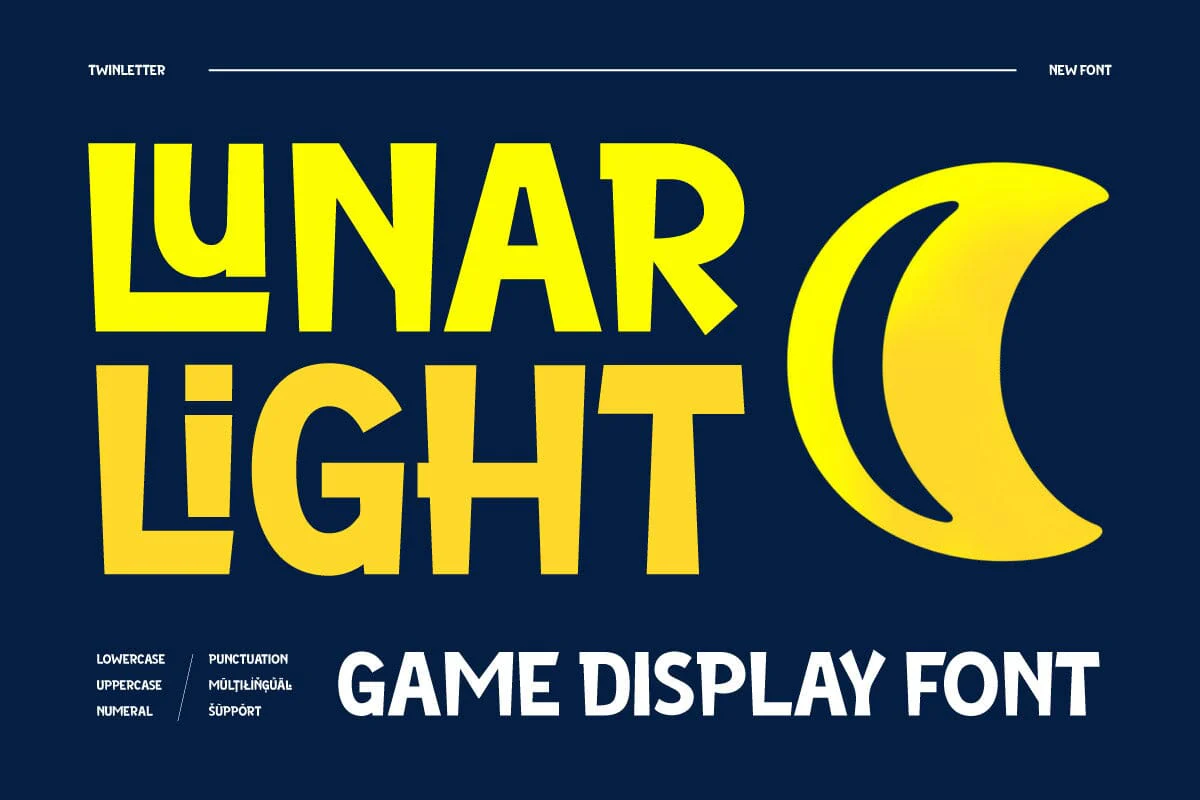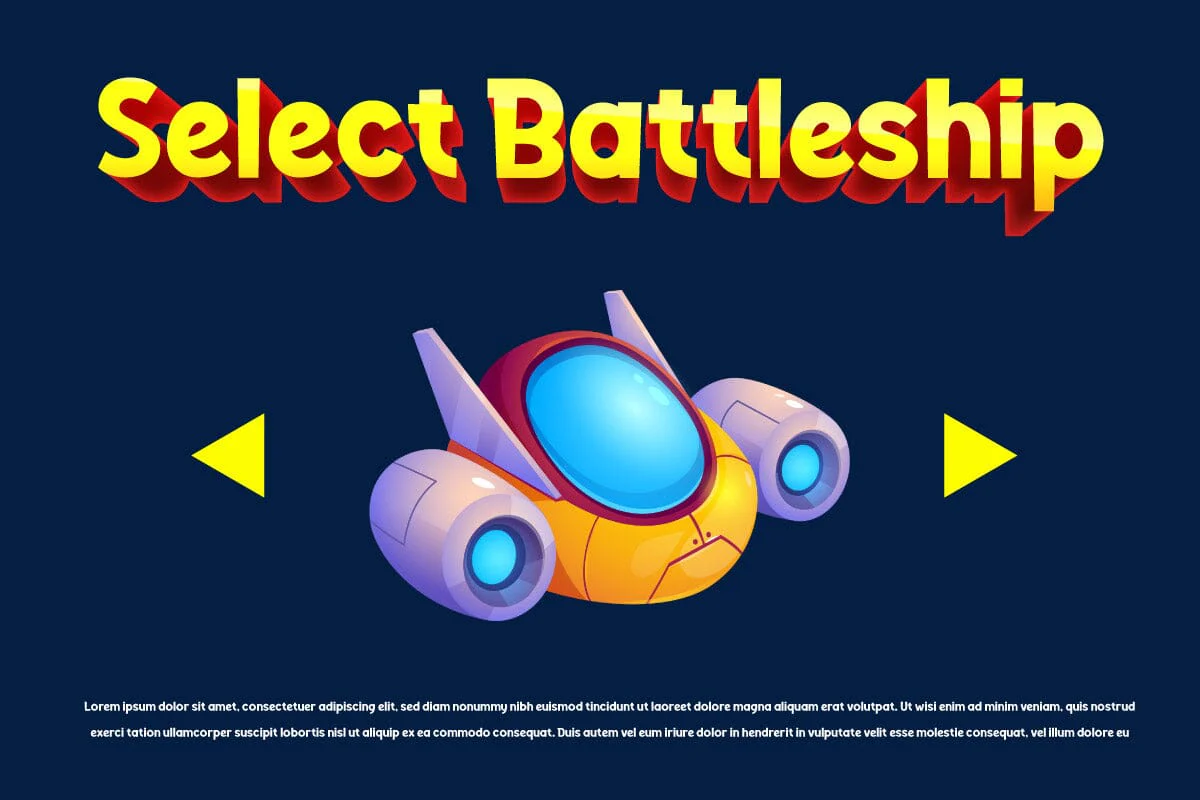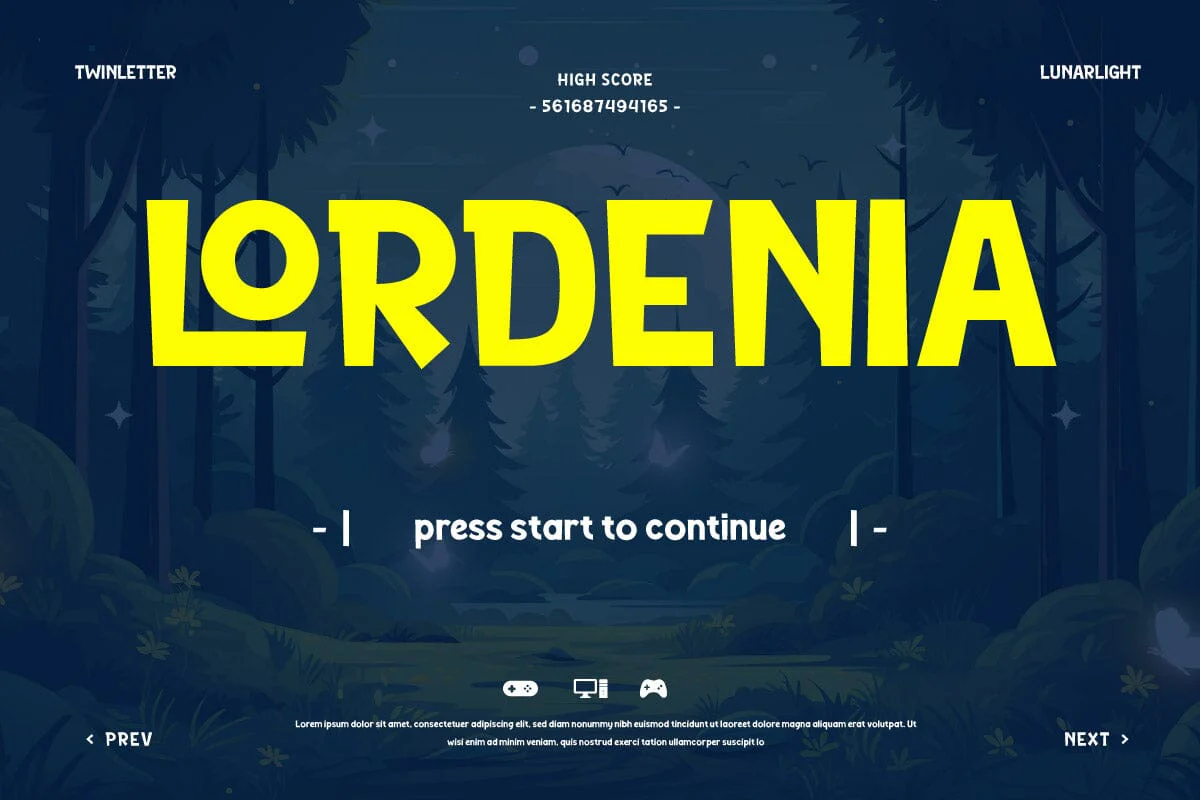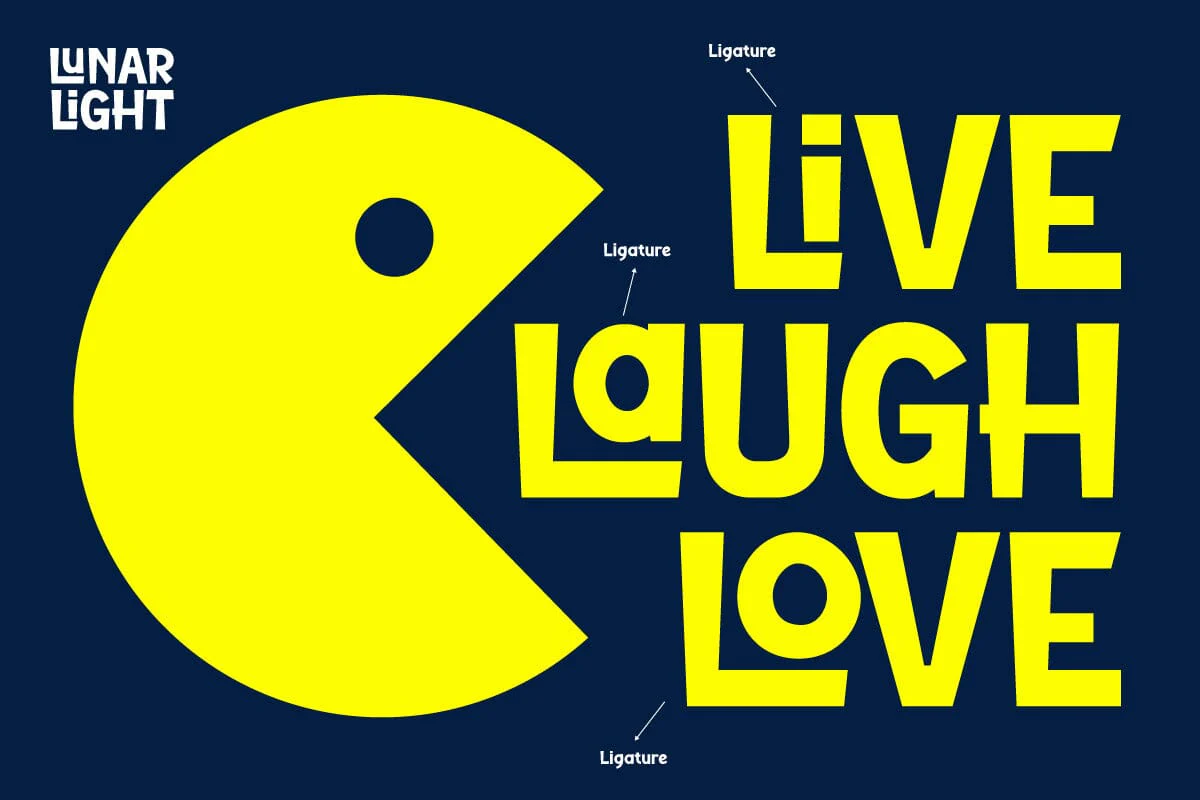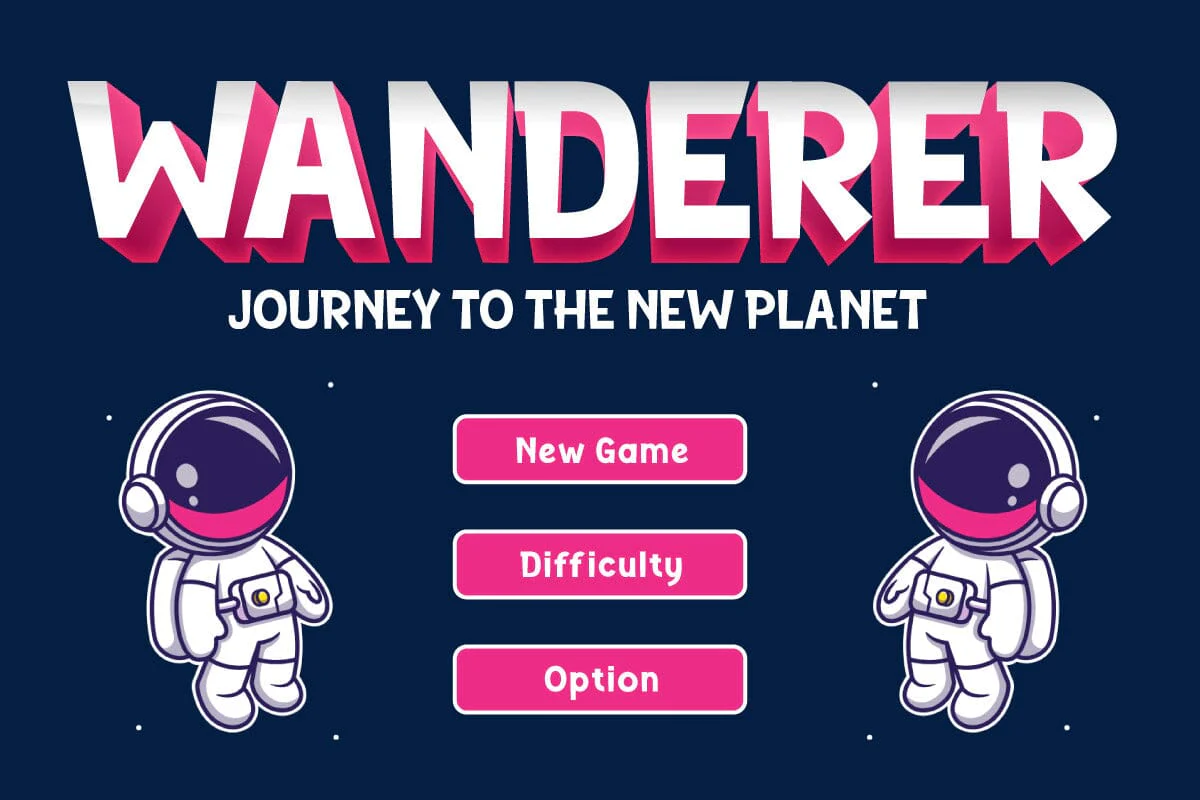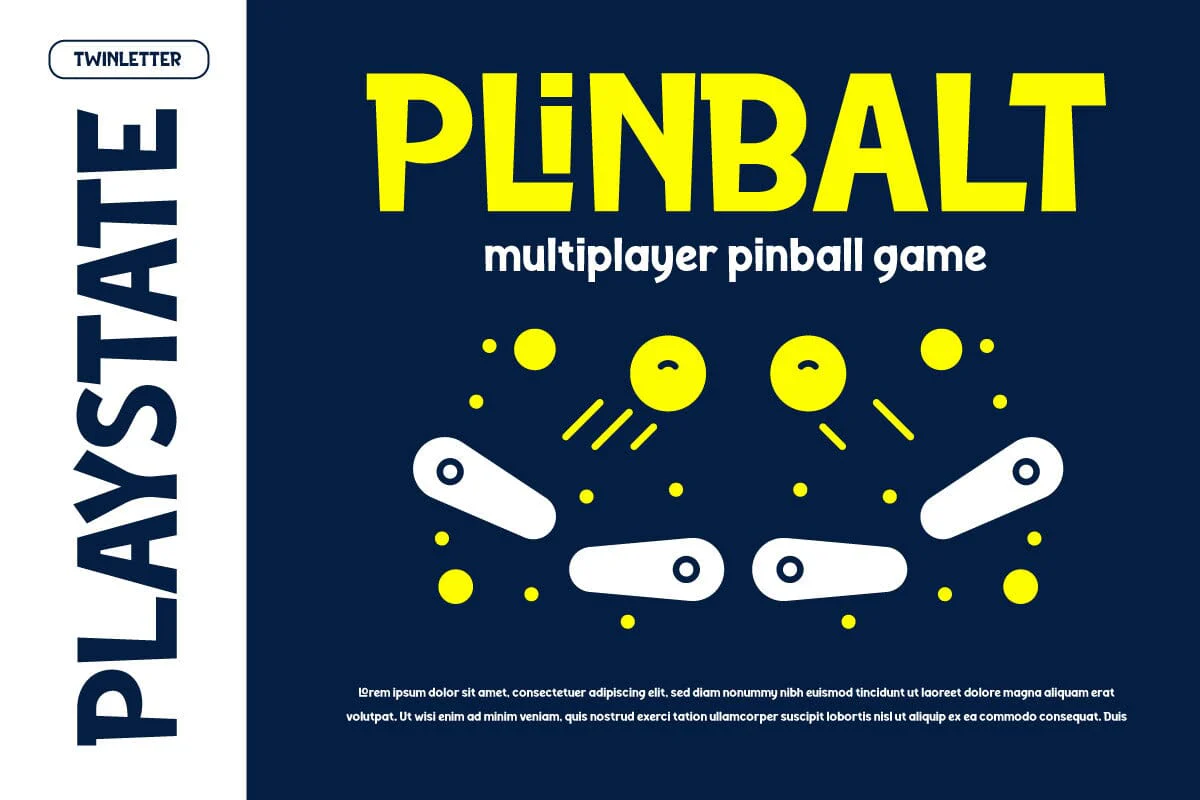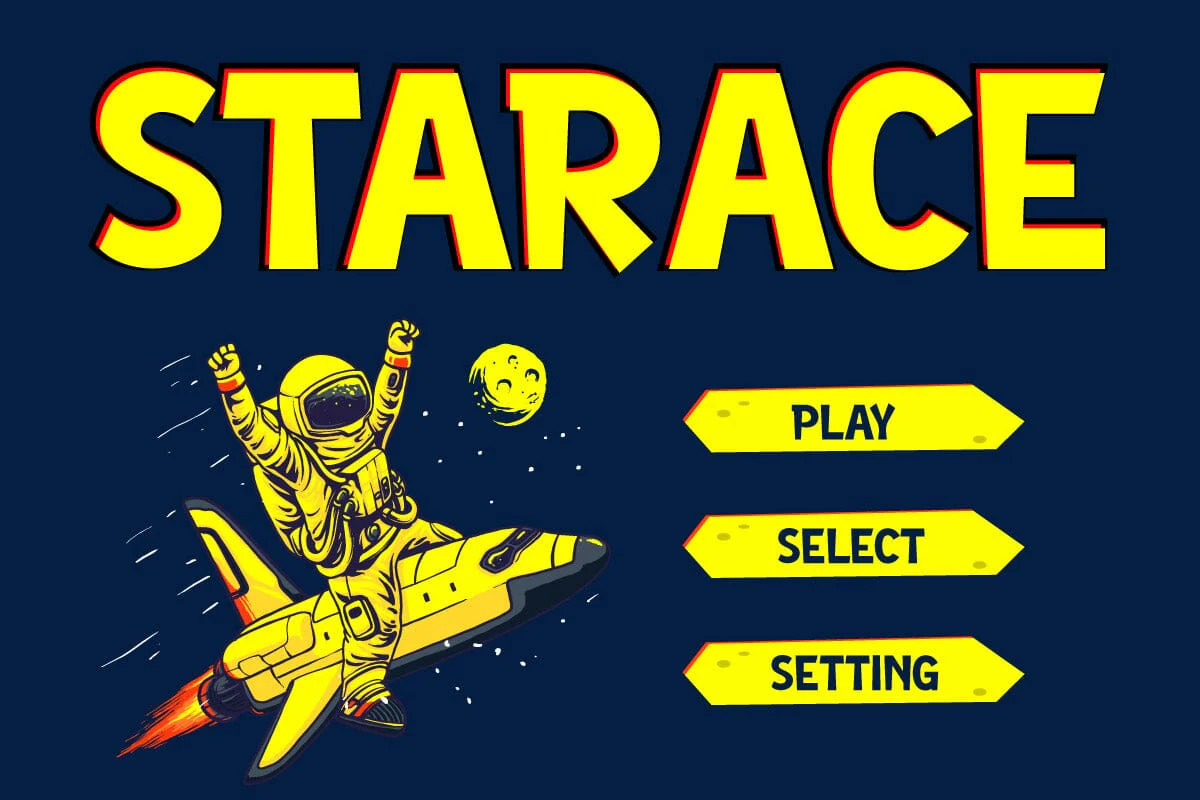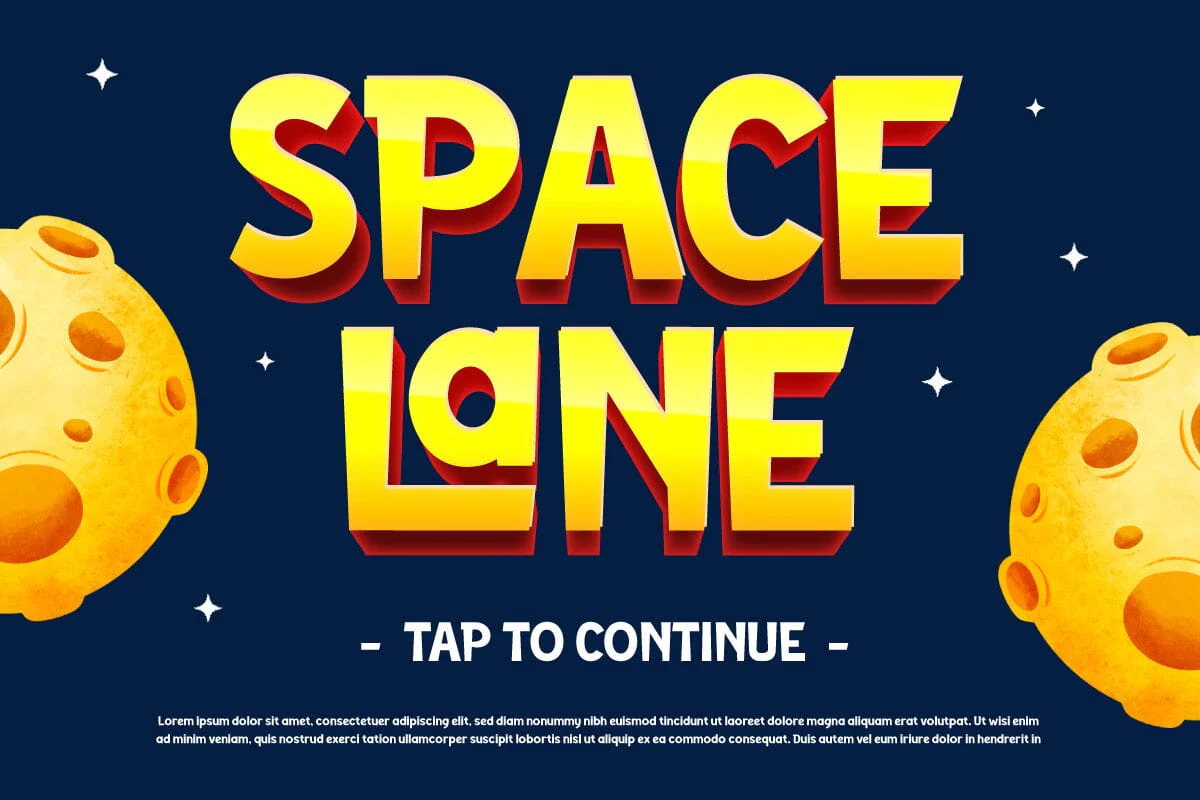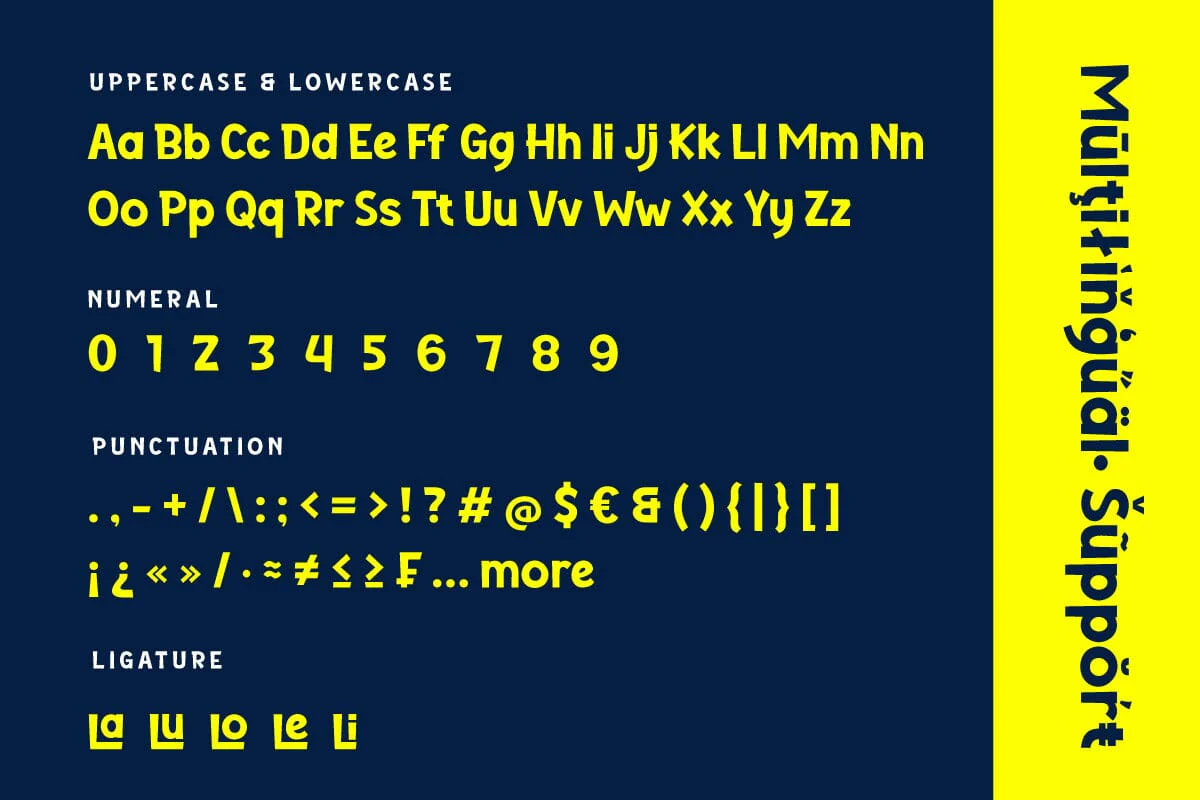
Lunarlight - Game Display Font
Unleash the power of the cosmos with Lunarlight, a Game Display Font that takes your designs to the next level. Inspired by the mysteries of space and the thrill of adventure, Lunarlight features bold, futuristic letterforms that are perfect for game interfaces, titles, and promotional materials.
Each character is meticulously crafted to convey energy, excitement, and a sense of otherworldly wonder. Whether you're developing an interstellar odyssey or a high-octane action game, Lunarlight's dynamic style and readability ensure your content captures attention and imagination.
Elevate your game's aesthetic with Lunarlight and embark on a design journey that's truly out of this world.